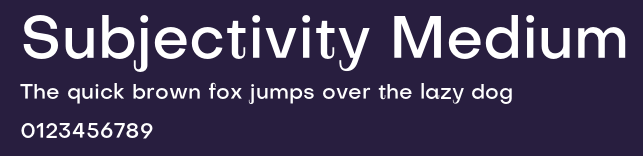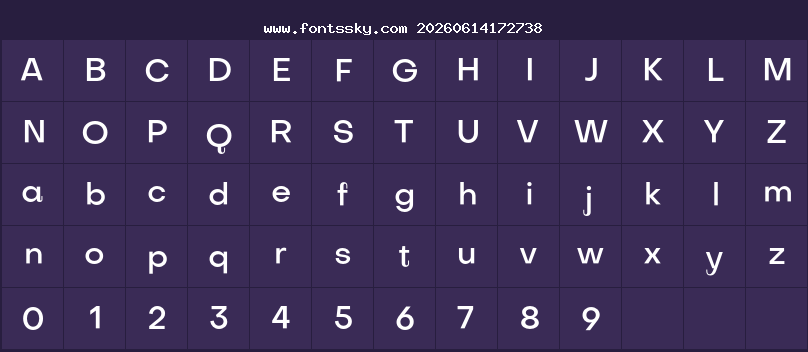
• Font Name: Subjectivity Medium
• Designer: Alexander Slobzheninov
About Subjectivity Medium.otf
Subjectivity Medium.otf is a modern, elegant sans-serif font designed for ultimate readability and visual harmony. Perfect for branding, headlines, web design, and print materials.